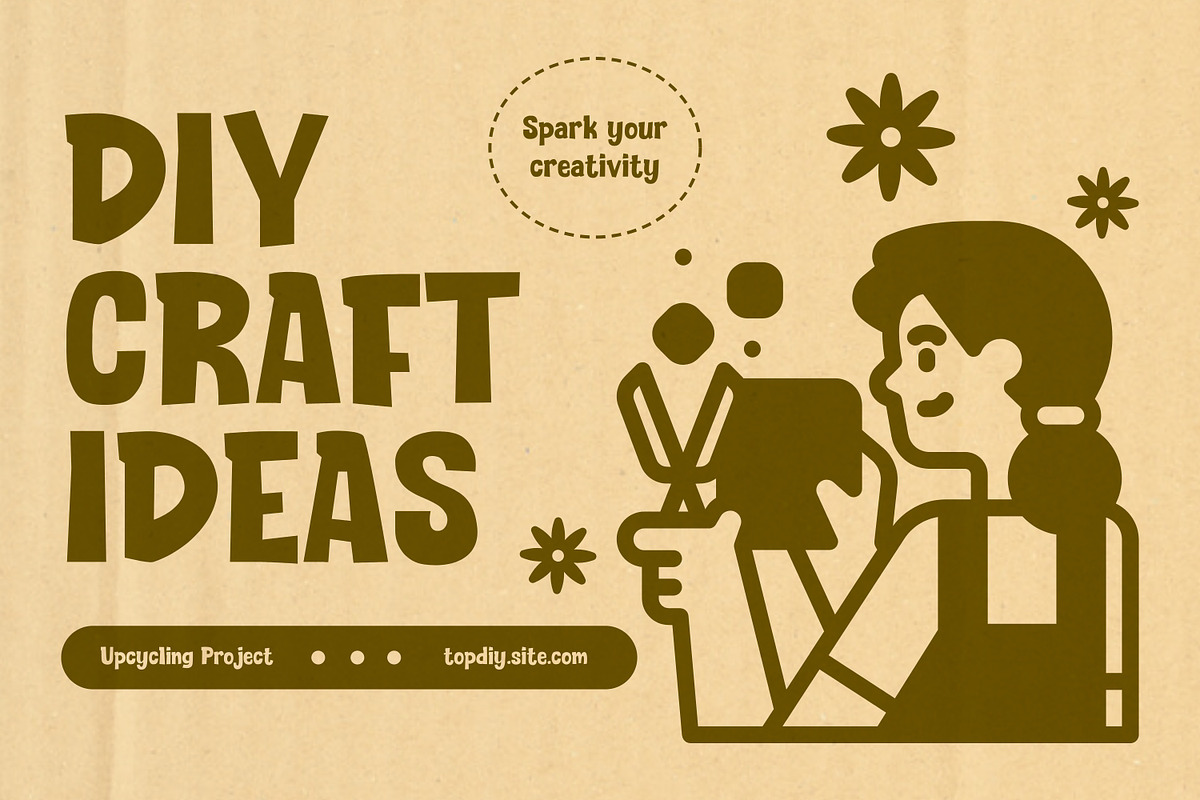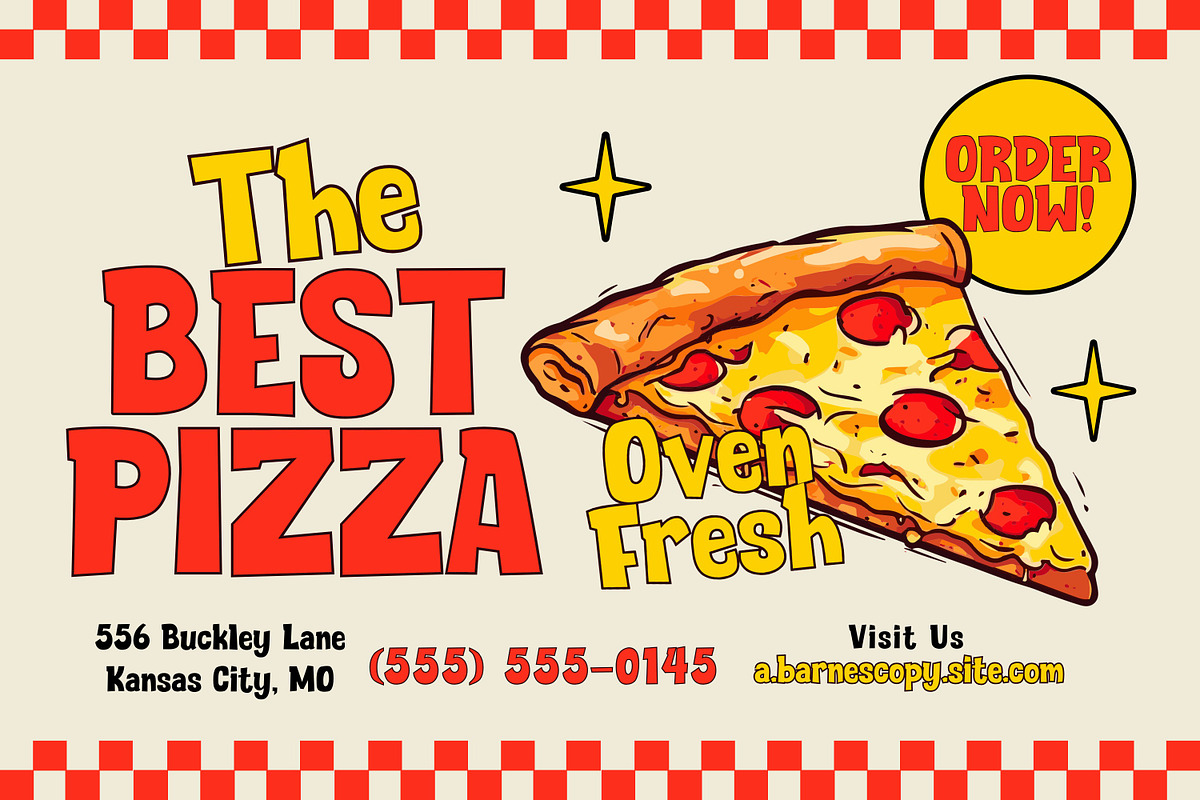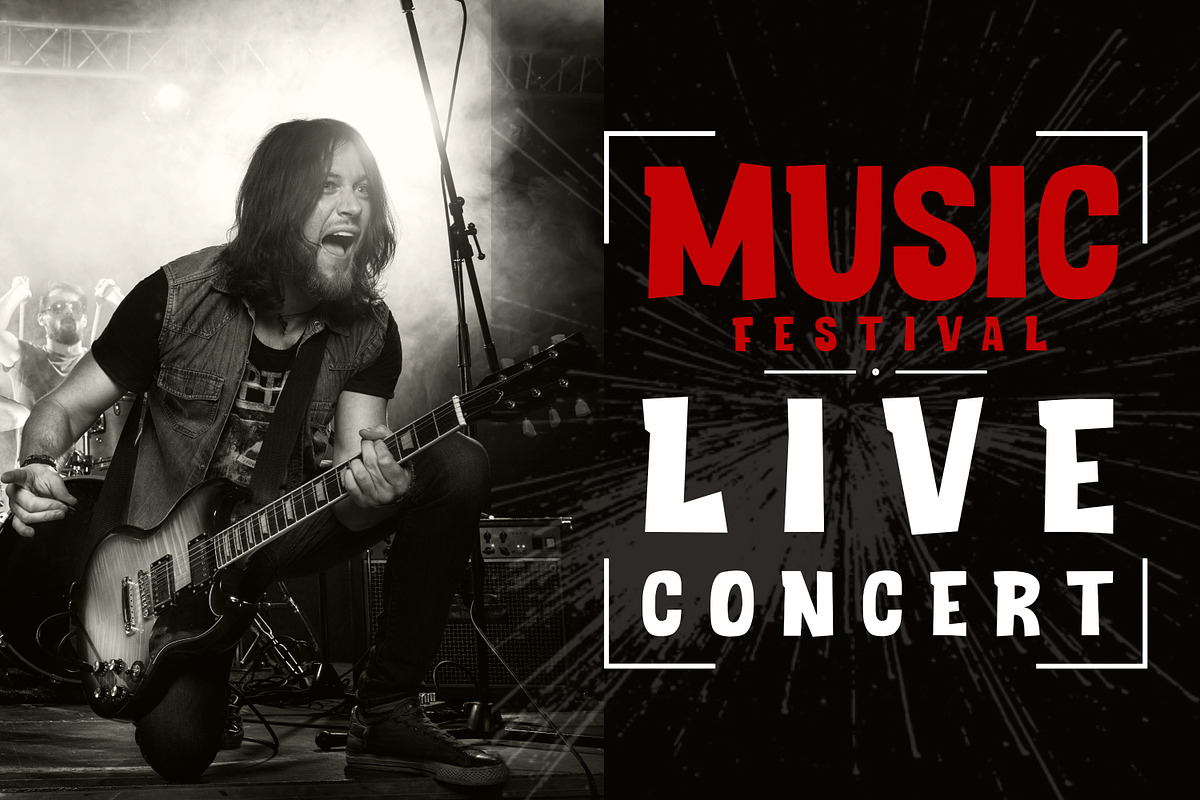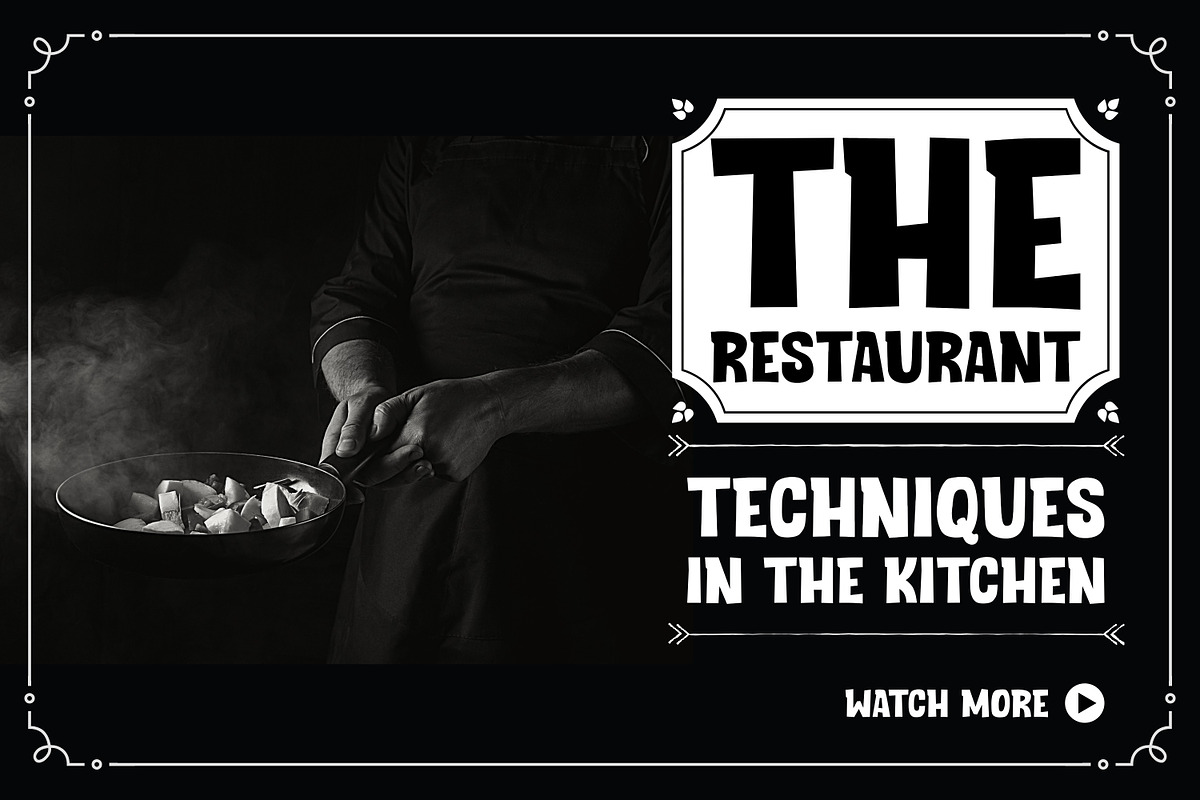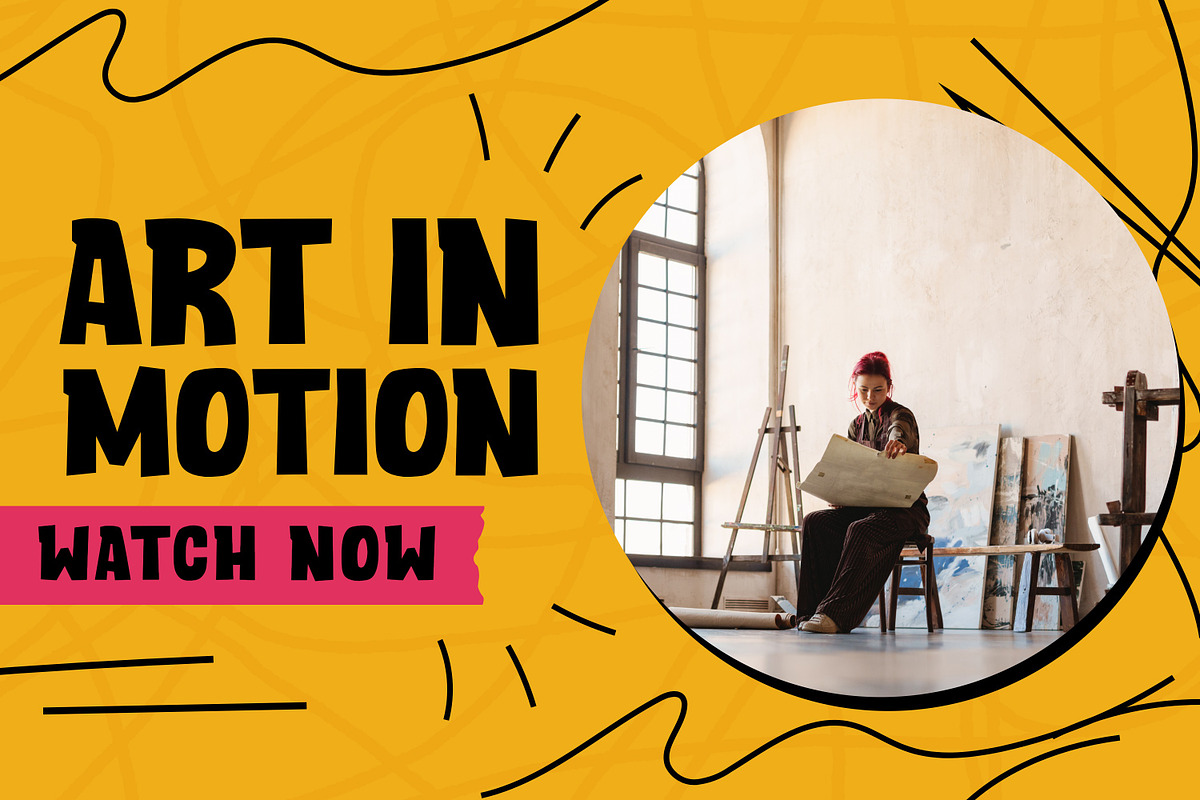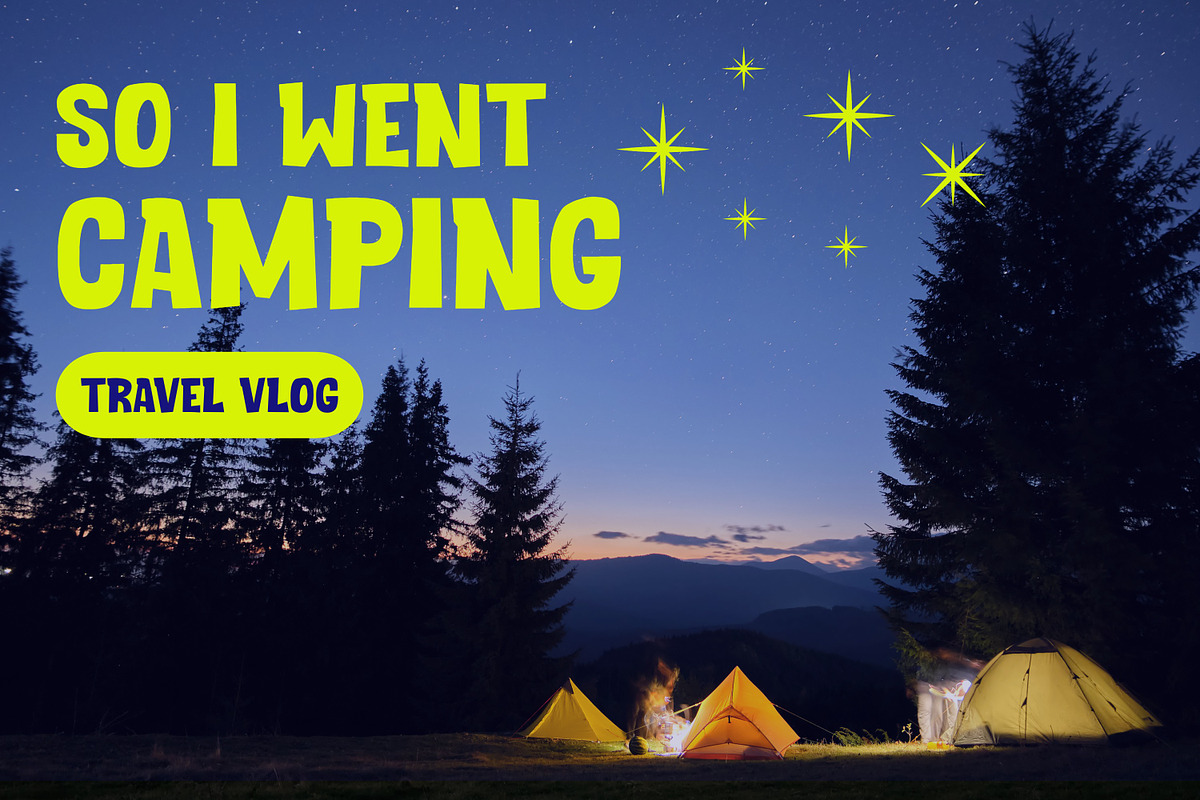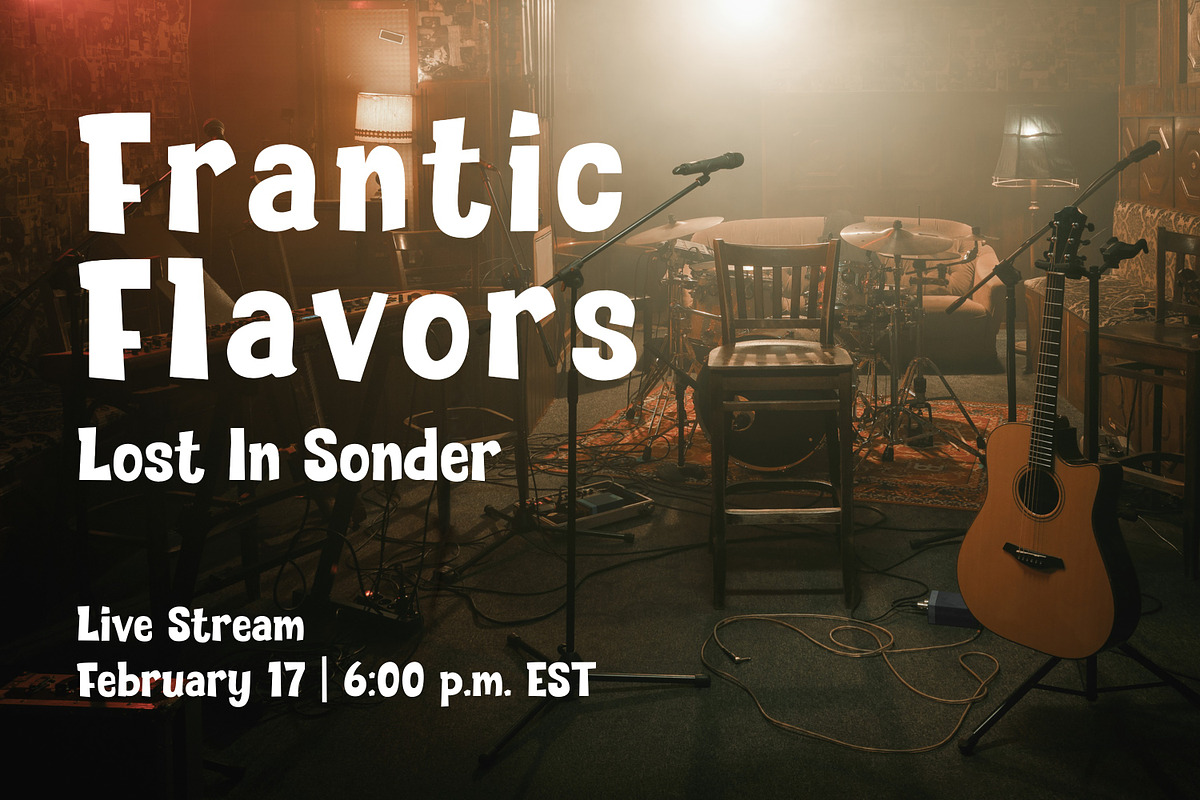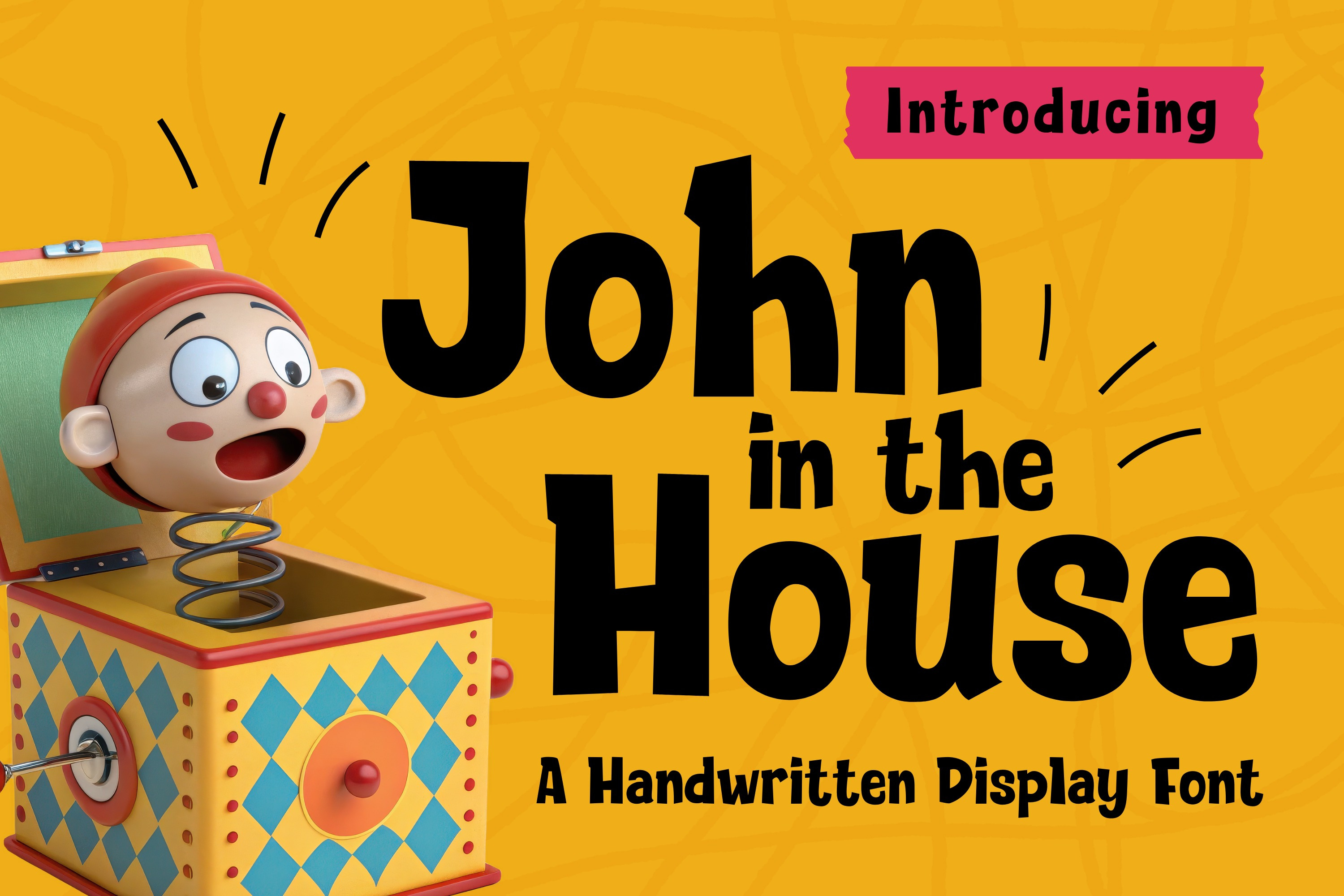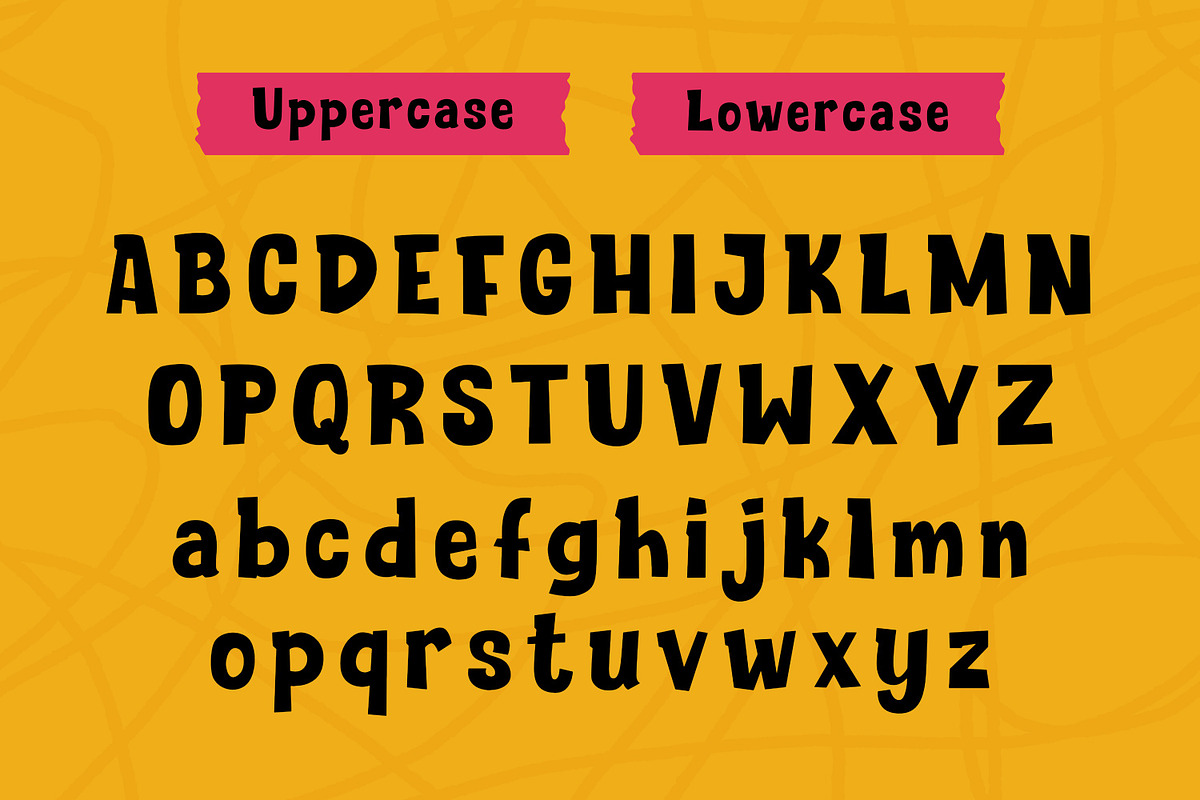
John in the House | Handwritten Font
John in the House is a fun, quirky handwritten display font packed with playful energy and personality. Featuring handcrafted cutout-style letterforms with a bouncy rhythm, this typeface brings an adventurous and joyful vibe to any creative project.
Its bold presence and high legibility make it ideal for capturing attention. John in the House is the perfect choice for children’s books, toy packaging, cartoon movie headlines, playful logo designs, party invitations, merchandise, and eye-catching social media graphics.
Children’s Books & Animated Movie Titles
Kids’ Toys, Games, & Playful Product Packaging
Creative Logo Designs & Brand Identities
Party Flyers, Posters, & Greeting Cards
Fun Stickers, & Kids Merchandise
YouTube Thumbnails & Social Media Content